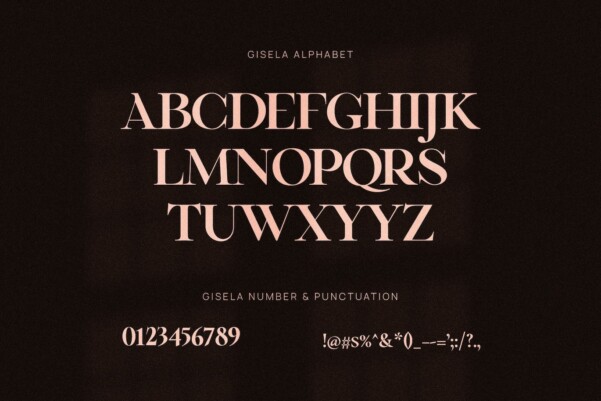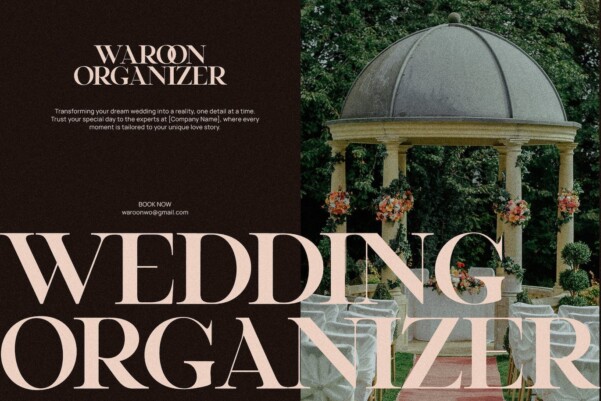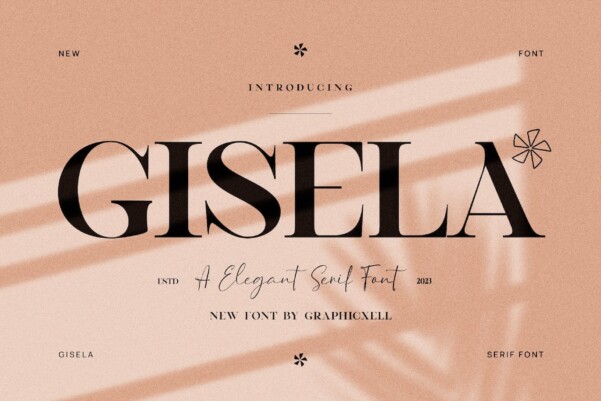
Gisela Serif Font
Gisela Serif Font, inspired by the famous minimalist logo, perfect for designing templates, brochures, videos, advertising brands, logos, invitations, layouts, elegant crafts, beauty design, etc.